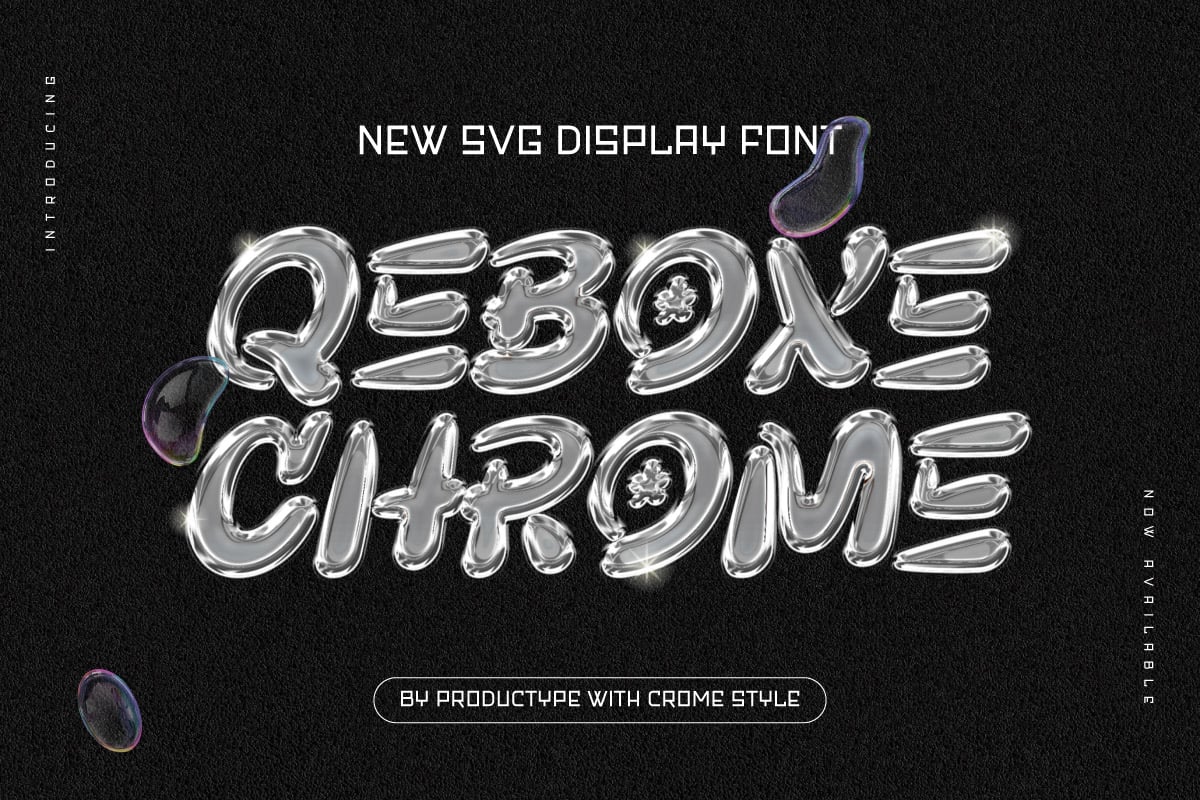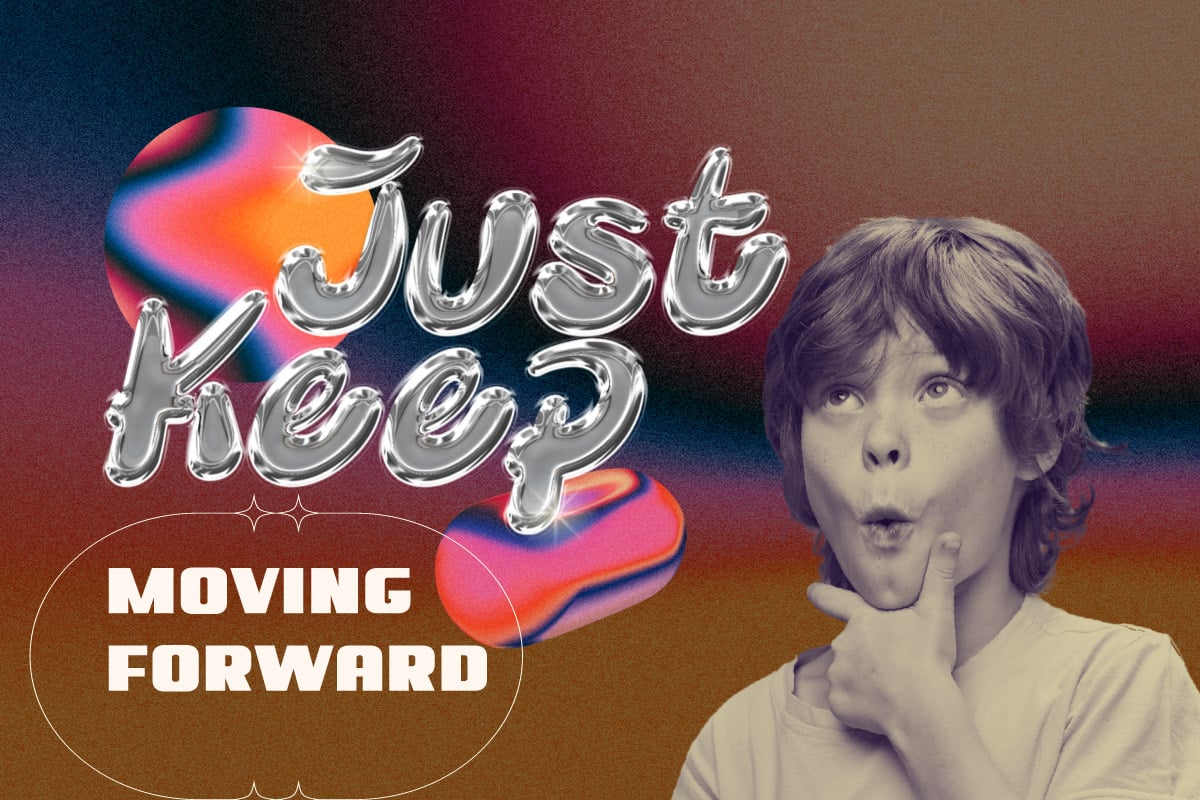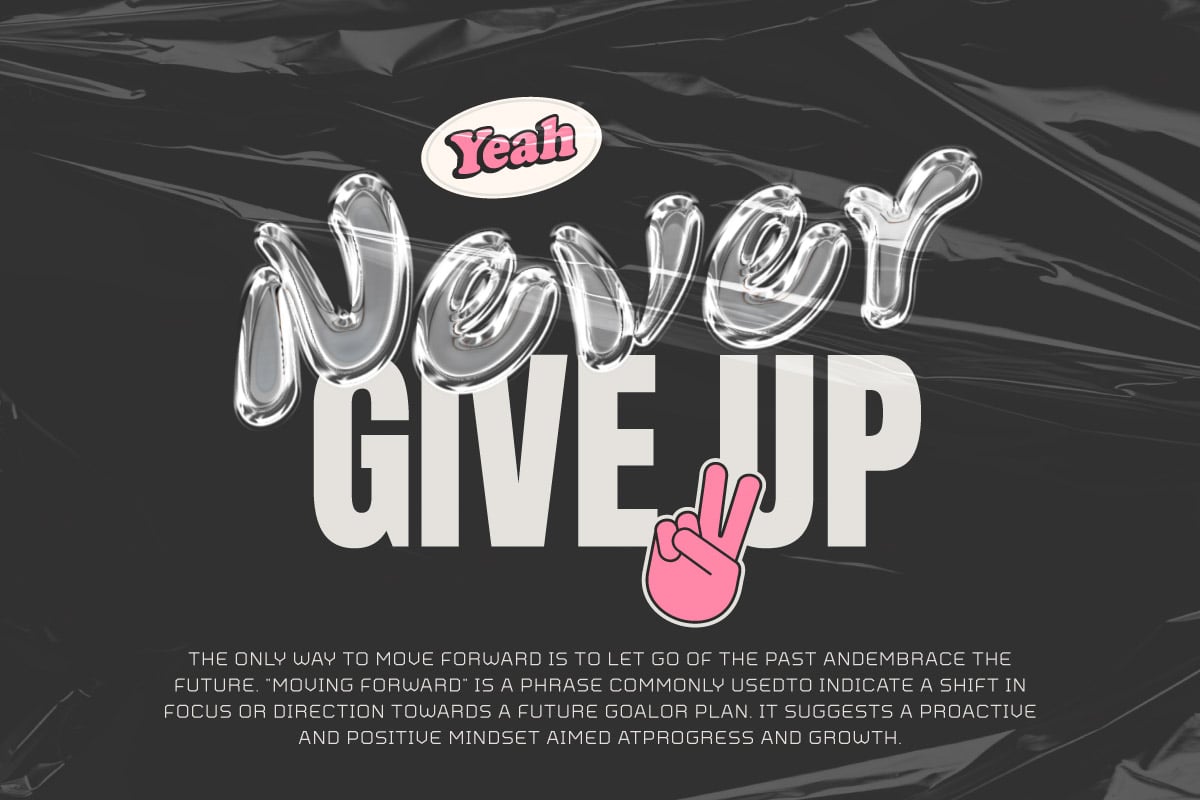
Qebox Chrome – 3D Style SVG Font
Qebox Chrome – 3D Style SVG Font is a versatile typeface ideal for various projects, including logos, branding, posters, blog headers, advertisements. The free version includes a full set of uppercase and lowercase letters, available in OTF format.
Qebox Chrome - 3D Style SVG Font Preview
Qebox Chrome - 3D Style SVG Font Sample
Qebox Chrome - 3D Style SVG Font Character Map